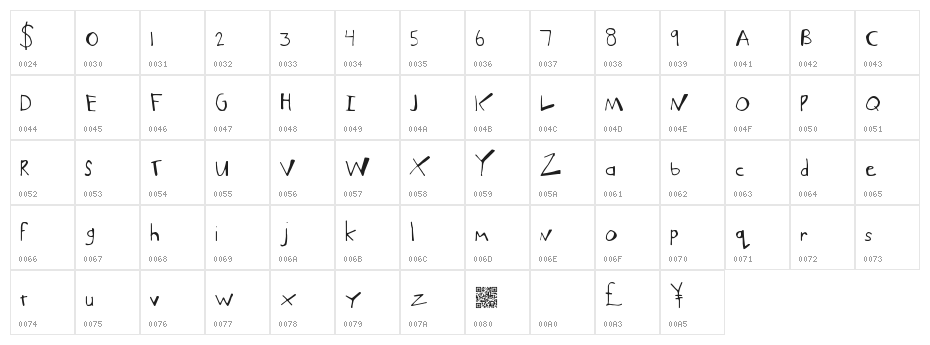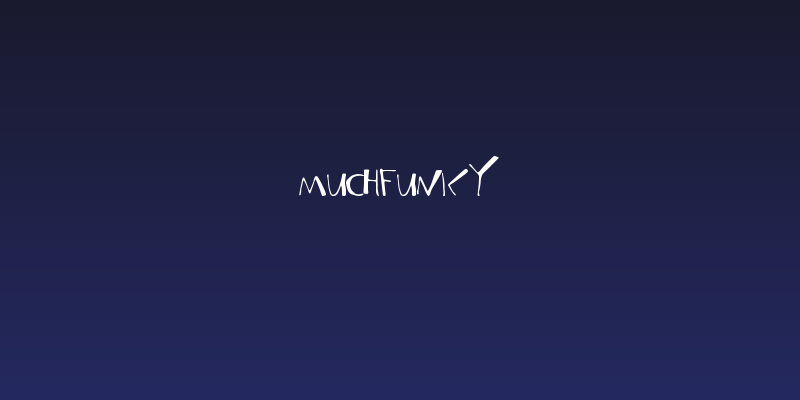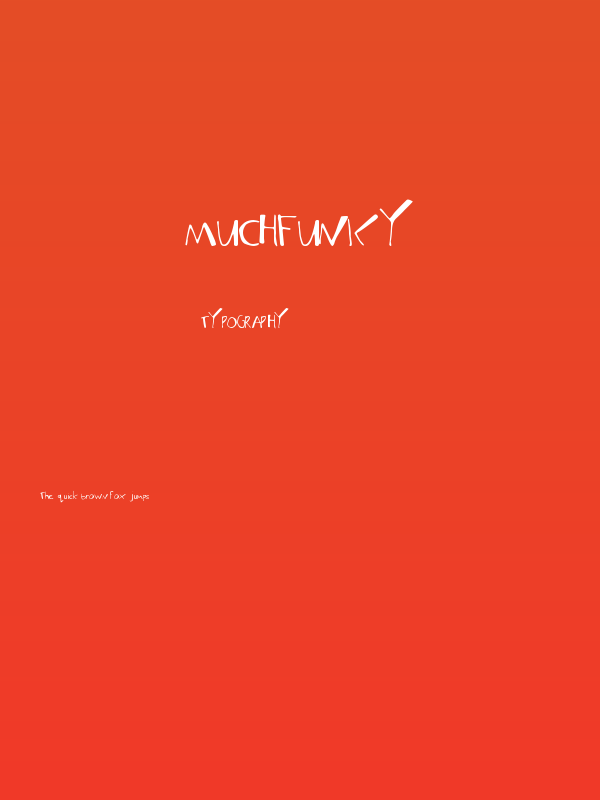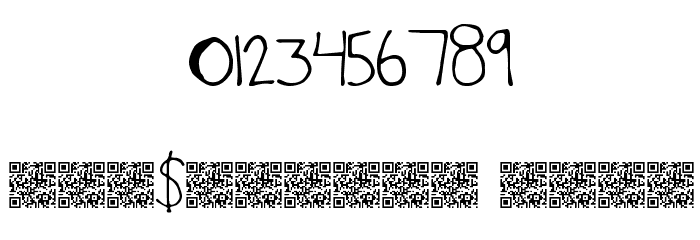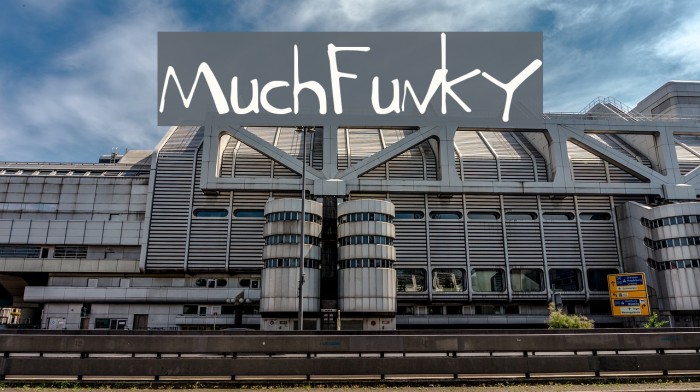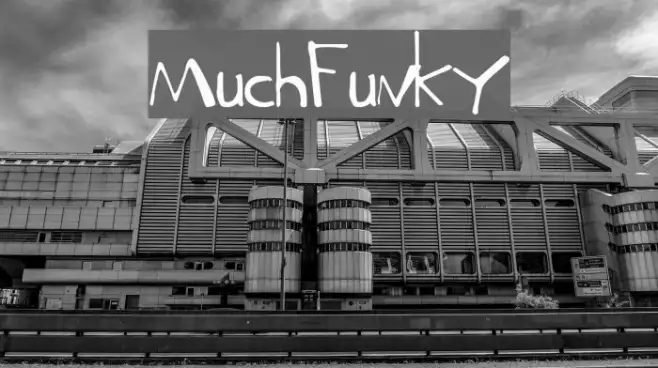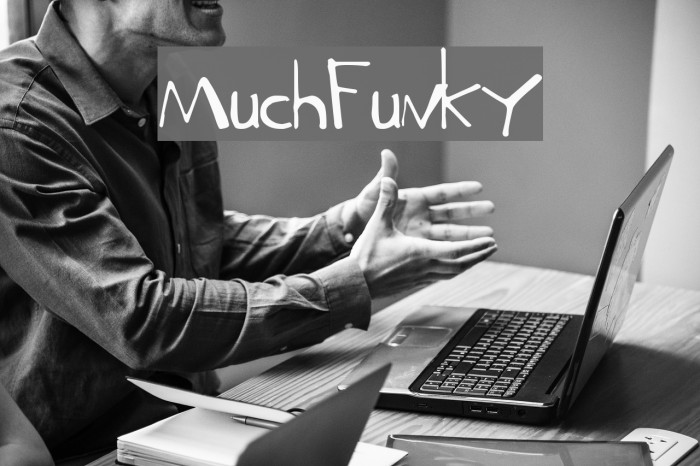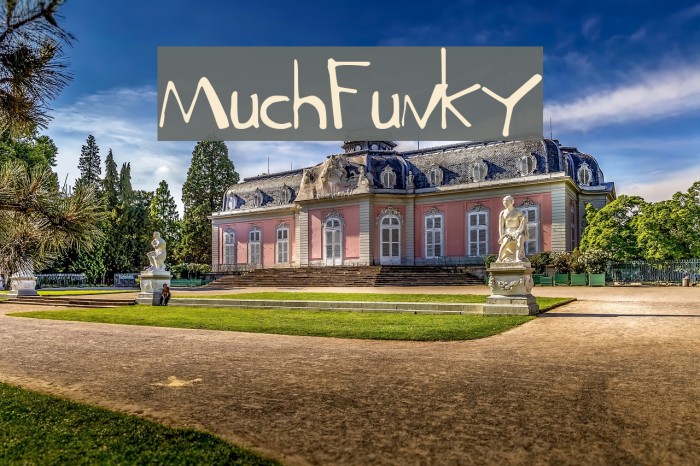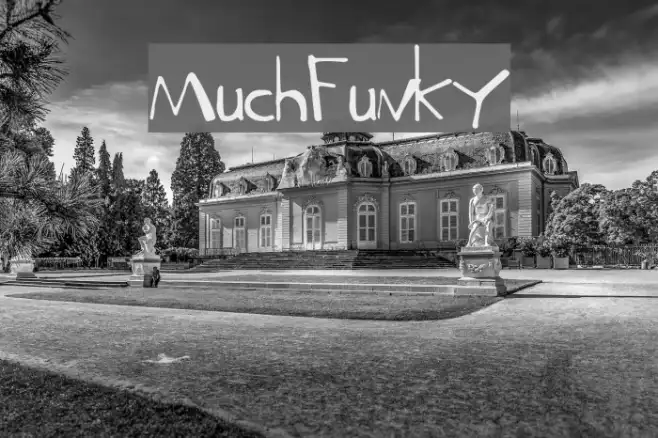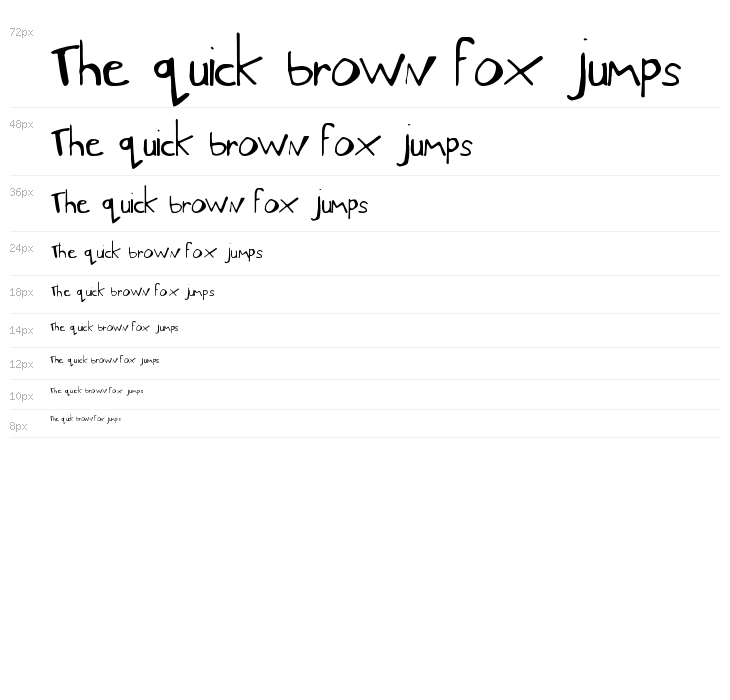
MuchFunky Font
MuchFunky Description
This font features a playful and quirky design, characterized by its irregular and dynamic letterforms. The uppercase letters exhibit a mix of sharp angles and smooth curves, creating an energetic and lively appearance. The lowercase letters maintain this whimsical style, with some characters having unique and unexpected shapes. The numerals are consistent with the overall theme, offering a fun and informal look. Special characters are included, adding to the font's versatility. This font is ideal for projects that require a touch of creativity and individuality.
| Proposed Projects | Ideal for children's books, creative posters, playful branding, and informal invitations. |